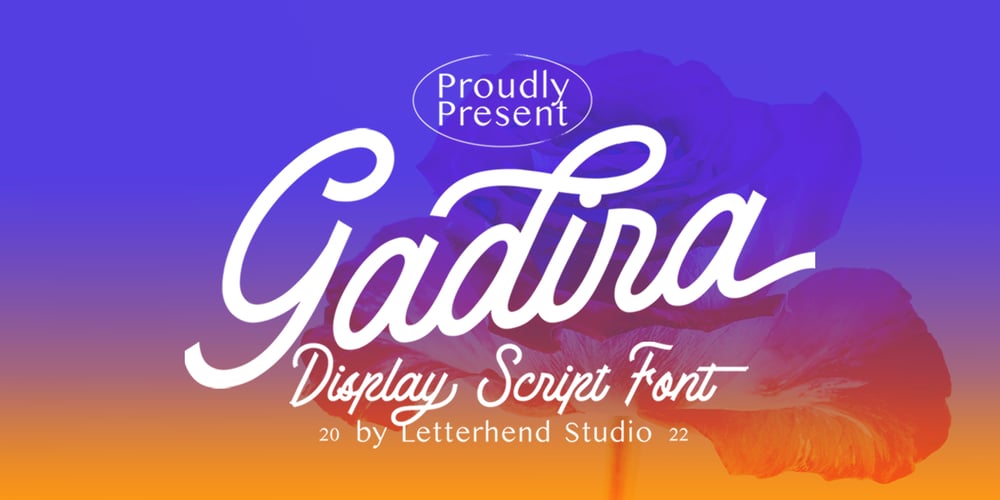
Gadira Font Family was designed by Hendry Juanda and published by Letterhend. Gadira contains 1 styles and family package options. Gadira is a casual and free style script display font. This font perfectly made to be applied especially in logo, and the other various formal forms such as invitations, labels, logos, magazines, books, greeting / wedding cards, packaging, fashion, make up, stationery, novels, labels or any type of advertising purpose.Features : uppercase & lowercase numbers and punctuation multilingual ligatures alternates swashes PUA encoded We highly recommend using a program that supports OpenType features and Glyphs panels like many of Adobe apps and Corel Draw, so you can see and access all Glyph variations.